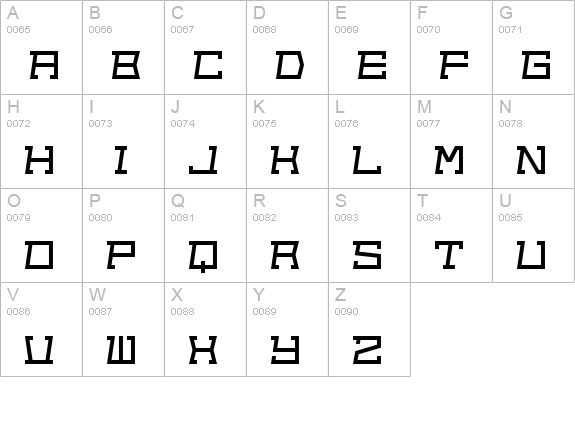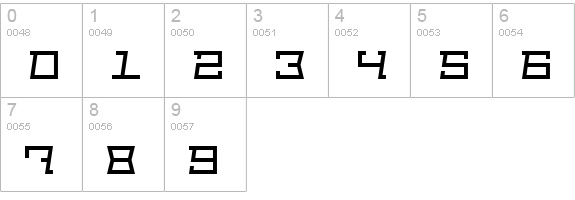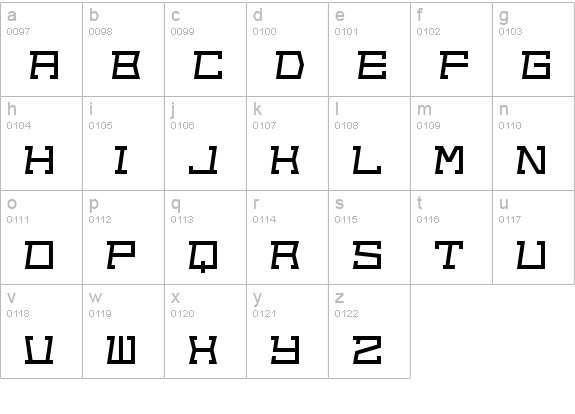
Out of sight Font Details
Out of sight font is a visually striking and unique typeface that is sure to make your designs stand out. With its modern and edgy design, this font is perfect for creating eye-catching headlines, posters, and logos. The sleek and futuristic look of Out of sight font will give your projects a contemporary and sophisticated feel. What sets Out of sight font apart is its versatility - it can be used for a variety of design projects, from branding to editorial design. Whether you're working on a sleek corporate identity or a cutting-edge magazine layout, this font will help you achieve a polished and professional look. Best of all, Out of sight font is completely free to download at FontsMarket.com. So why wait? Add this stylish and modern font to your collection today and take your designs to the next level.